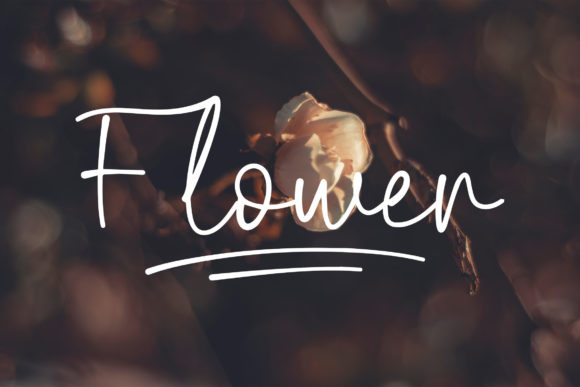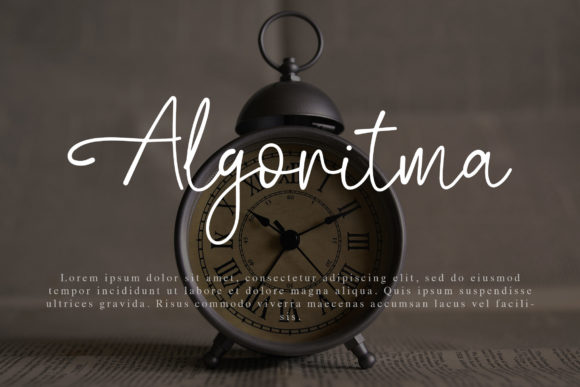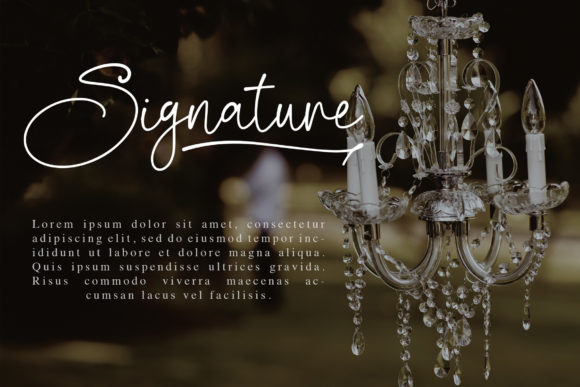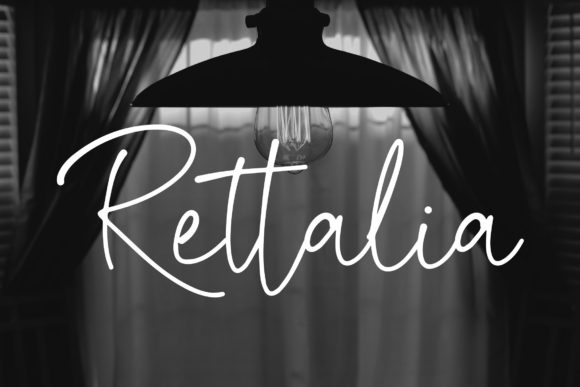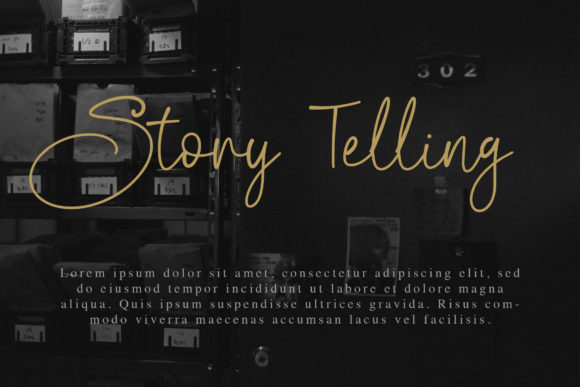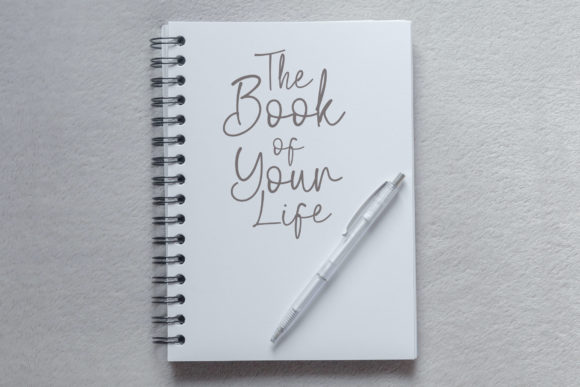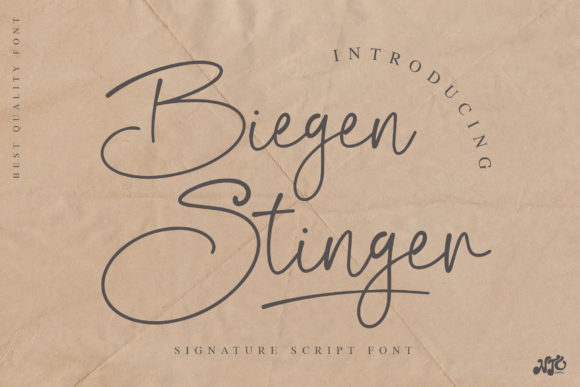
Biegen Stinger Script Font: Elevate Your Designs with Elegance
Are you on the hunt for a font that exudes sophistication, elegance, and a touch of vintage charm? Look no further than the Biegen Stinger Script Font. This delicate, flowing, and vintage-styled handwritten font is perfect for designers and crafters seeking to add a classy touch to their projects.
What is Biegen Stinger Script Font?
Biegen Stinger Script Font is a beautifully crafted font that boasts a unique, hand-written style. Its intricate and flowing lines evoke a sense of nostalgia, making it an ideal choice for projects that require a touch of classic elegance. The font’s delicate nature ensures that it remains legible, even at smaller sizes, making it versatile for various design applications.
Key Features of Biegen Stinger Script Font
- Delicate and Flowing Lines: The font’s flowing lines and delicate nature give it a distinctive, hand-written look that sets it apart from other fonts.
- Vintage Styled: The Biegen Stinger Script Font has a vintage charm that makes it perfect for projects that require a classic, timeless look.
- Classy and Elegant: The font’s sophisticated design makes it ideal for high-end branding, logos, and designs that require an air of elegance.
- Versatile: The font can be used for a wide range of design applications, including logos, branding, invitations, stationery, wedding designs, social media posts, and more.
Use Cases for Biegen Stinger Script Font
The Biegen Stinger Script Font is an incredibly versatile font that can be used for various design projects. Here are some use cases to get you started:
- Logos and Branding: Create a lasting impression with a custom logo or brand identity that incorporates the Biegen Stinger Script Font.
- Invitations and Stationery: Add a touch of elegance to your invitations, greeting cards, and stationery with this beautiful font.
- Wedding Designs: Make your wedding designs, such as wedding invitations, programs, and place cards, truly special with the Biegen Stinger Script Font.
- Social Media Posts: Elevate your social media posts with a font that exudes sophistication and elegance.
Why Choose Biegen Stinger Script Font?
With so many fonts available, why choose the Biegen Stinger Script Font? Here are a few reasons:
- Unique and Distinctive: The font’s unique design ensures that your projects stand out from the crowd.
- High-Quality: The font is crafted with attention to detail, ensuring that it looks great in various design applications.
- Easy to Read: Despite its delicate nature, the font remains legible, making it perfect for body text and headings.
Tips for Using Biegen Stinger Script Font
To get the most out of the Biegen Stinger Script Font, here are a few tips:
- Pair with a Sans-Serif Font: Pair the Biegen Stinger Script Font with a sans-serif font to create a beautiful contrast.
- Experiment with Colors: The font looks great in various colors, so don’t be afraid to experiment and find the perfect hue for your project.
- Use for Headings and Titles: The font’s elegant design makes it perfect for headings and titles, adding a touch of sophistication to your projects.
In conclusion, the Biegen Stinger Script Font is a beautiful, elegant, and versatile font that can elevate your designs to the next level. Its delicate, flowing lines and vintage charm make it perfect for a wide range of design applications. Whether you’re a designer or crafter, this font is sure to become a staple in your collection.